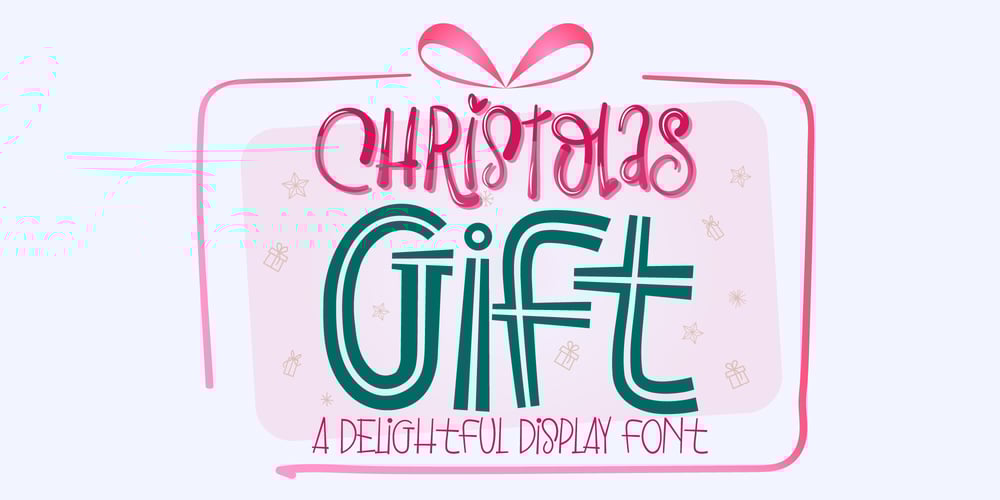
Christolas Gift Font Family was designed by Ake Thanantreesak and published by Ake. Christolas Gift contains 4 styles and family package options. Christolas Gift is a delightful display font that uses the magic of the winter holidays to bring joy to the ones who use it. Its playful style makes it a perfect choice for a variety of products. You can use it with confidence on greeting and holiday cards, quotes. children’s books and activities, logos, mugs, gift bags, and many more.